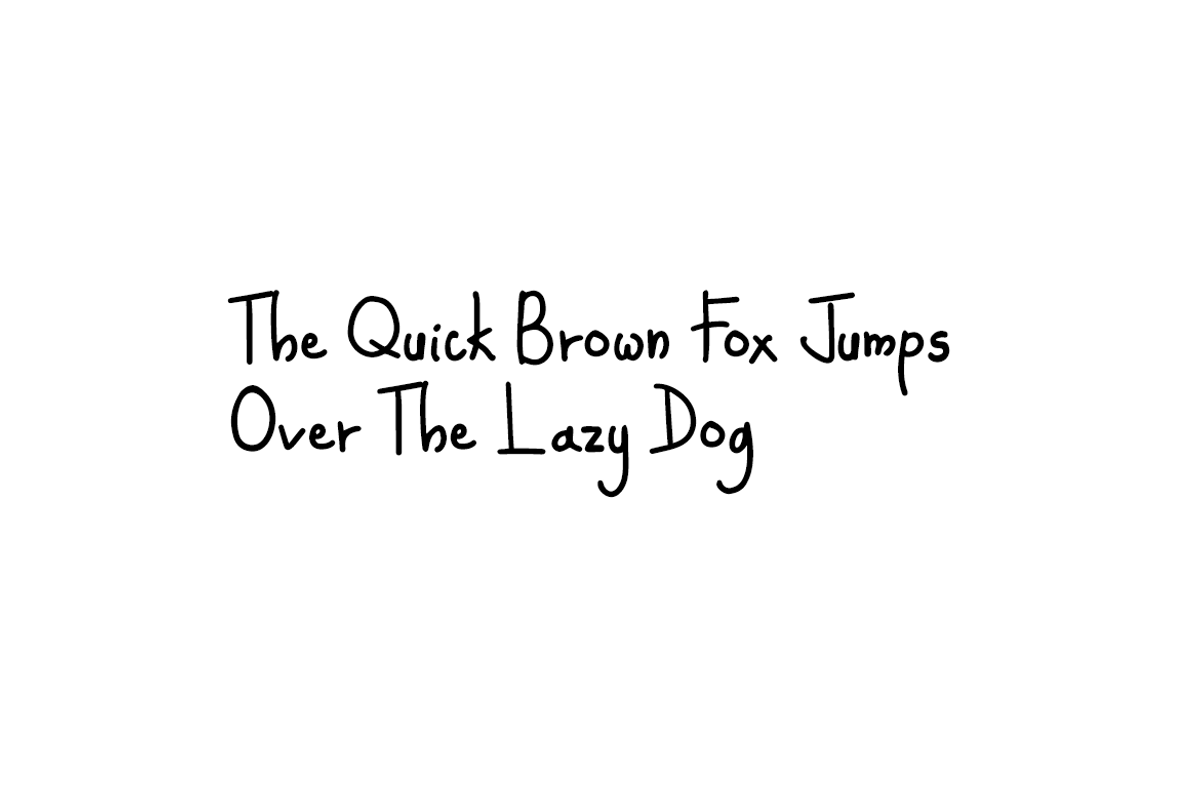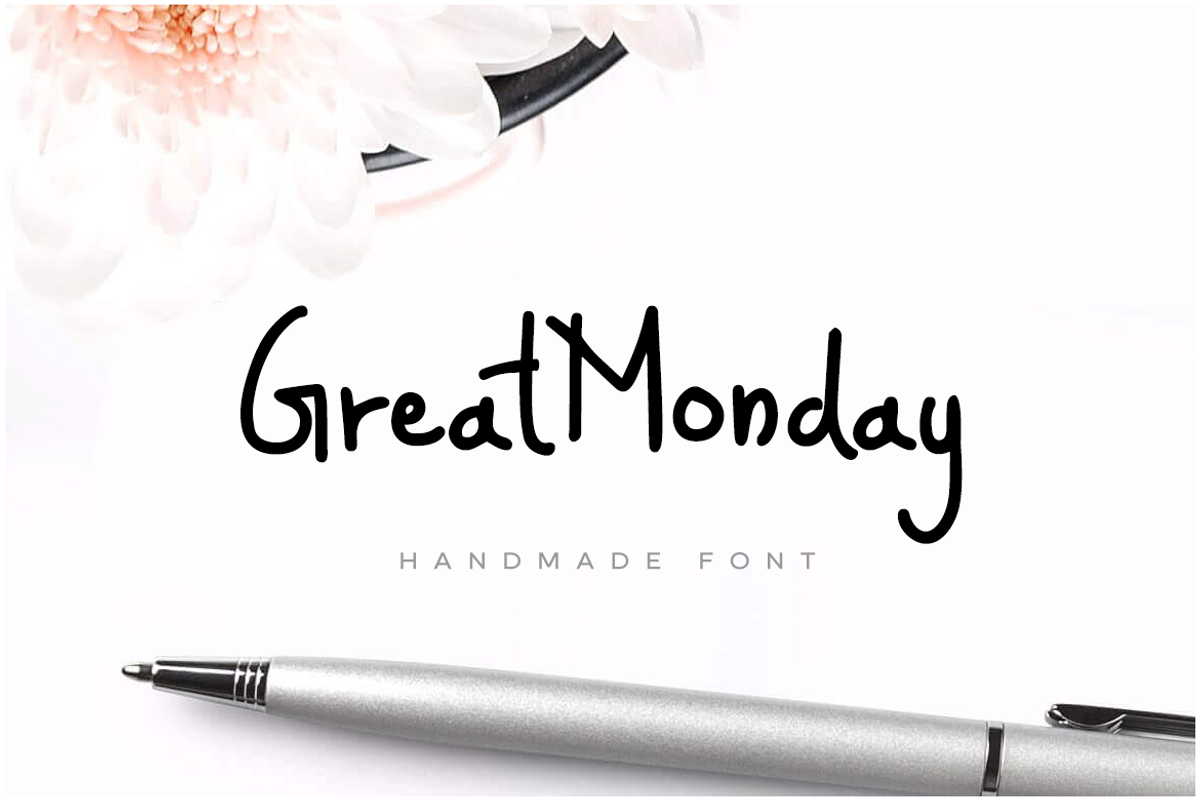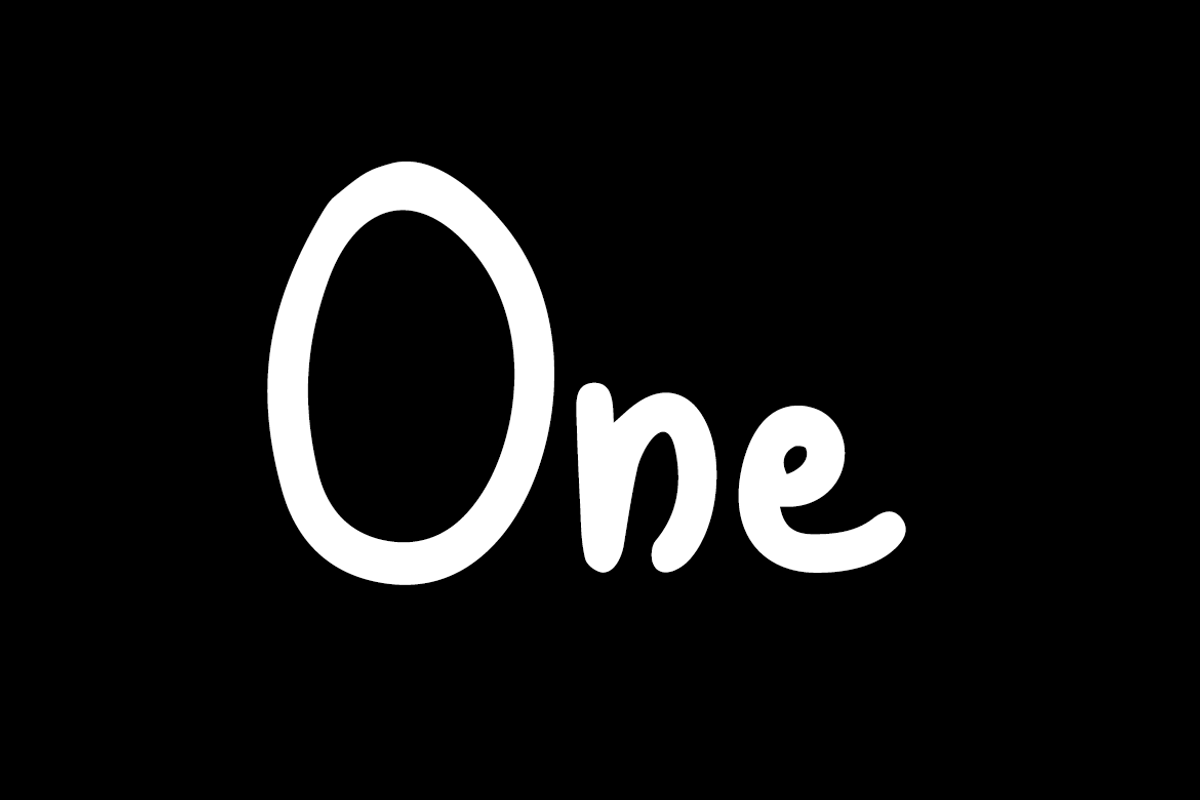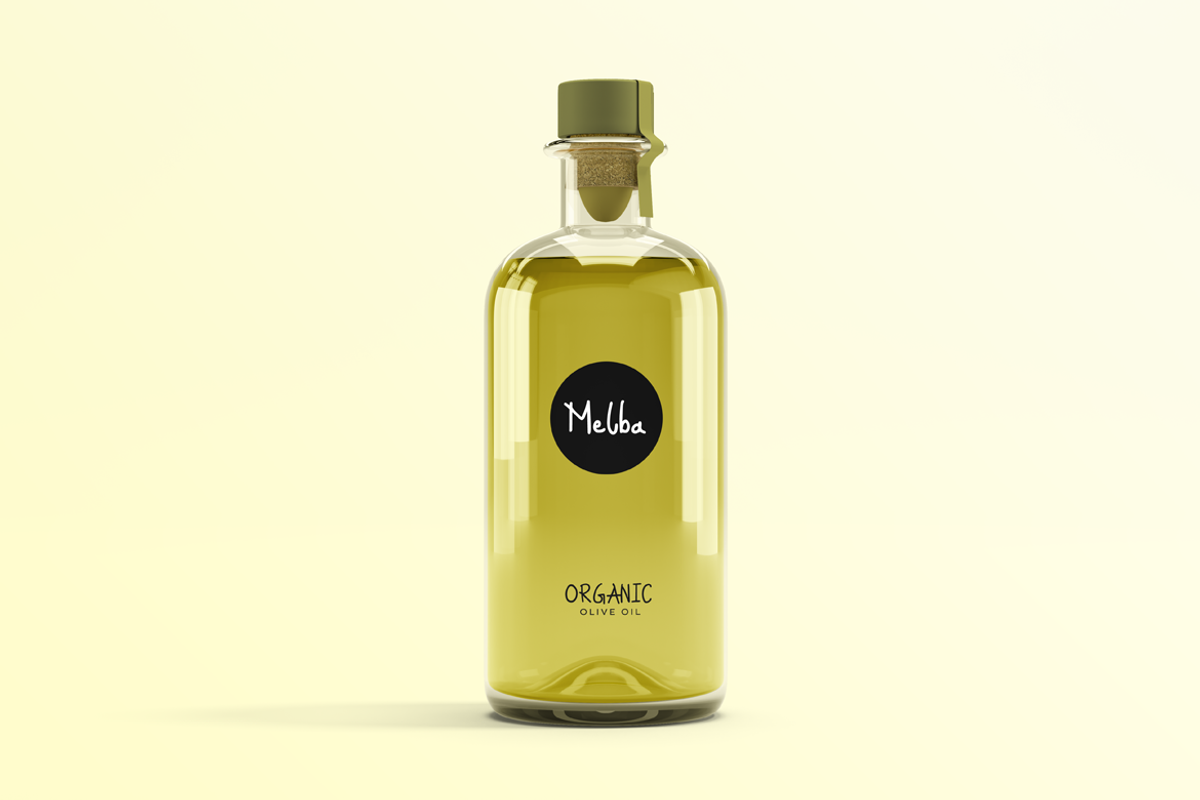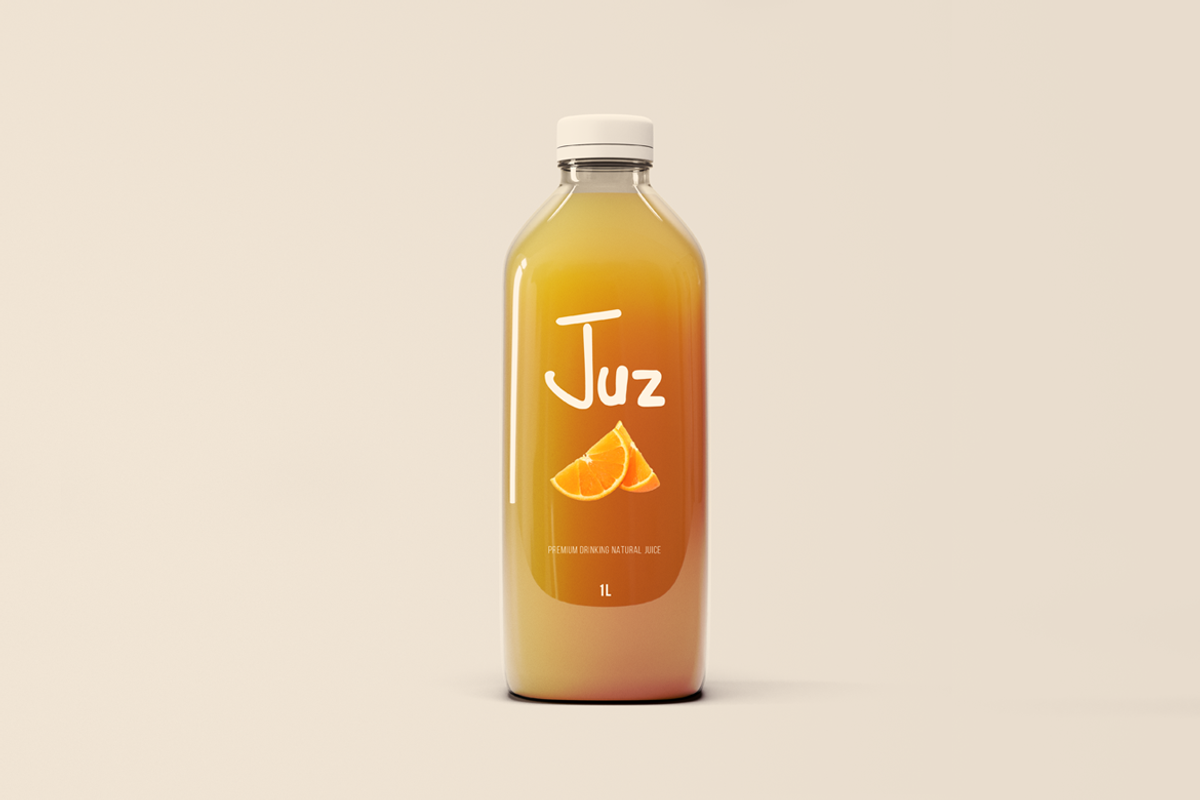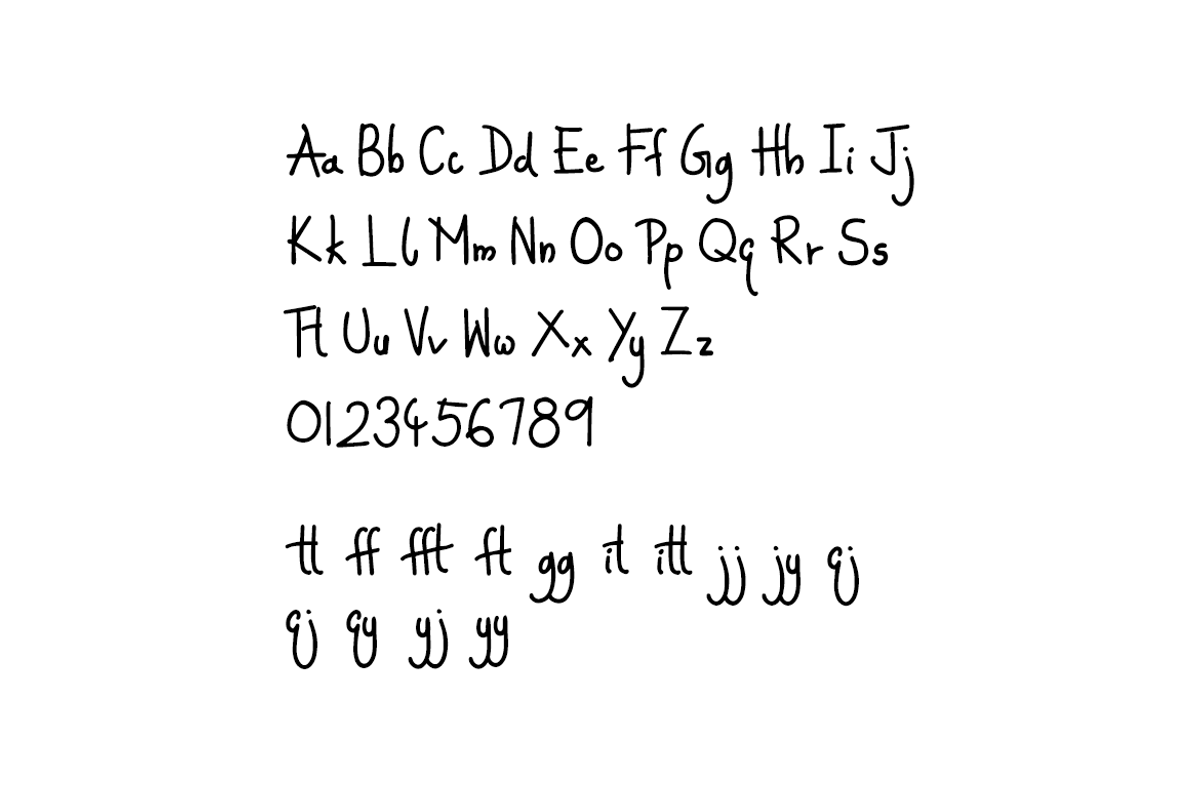
GreatMonday - Fresh Handmade Font
GreatMonday is unique, fresh and beautiful handwritten font for branding / logo design / logotypes / greeting cards / promotional graphics and anything in between. GreatMonday is completely handmade with passion, perfection as well as aesthetics at it's level best.
We have created 14 unique ligatures to make sure the font looks beautiful and professional.
Extended Character Sets
Along with the basic Latin character set, we have added Western European, Central European, South Eastern European character sets for your convenience. The font contains a total of 336 glyphs.
We have performed advanced, in-depth kerning for all possible letter combinations.